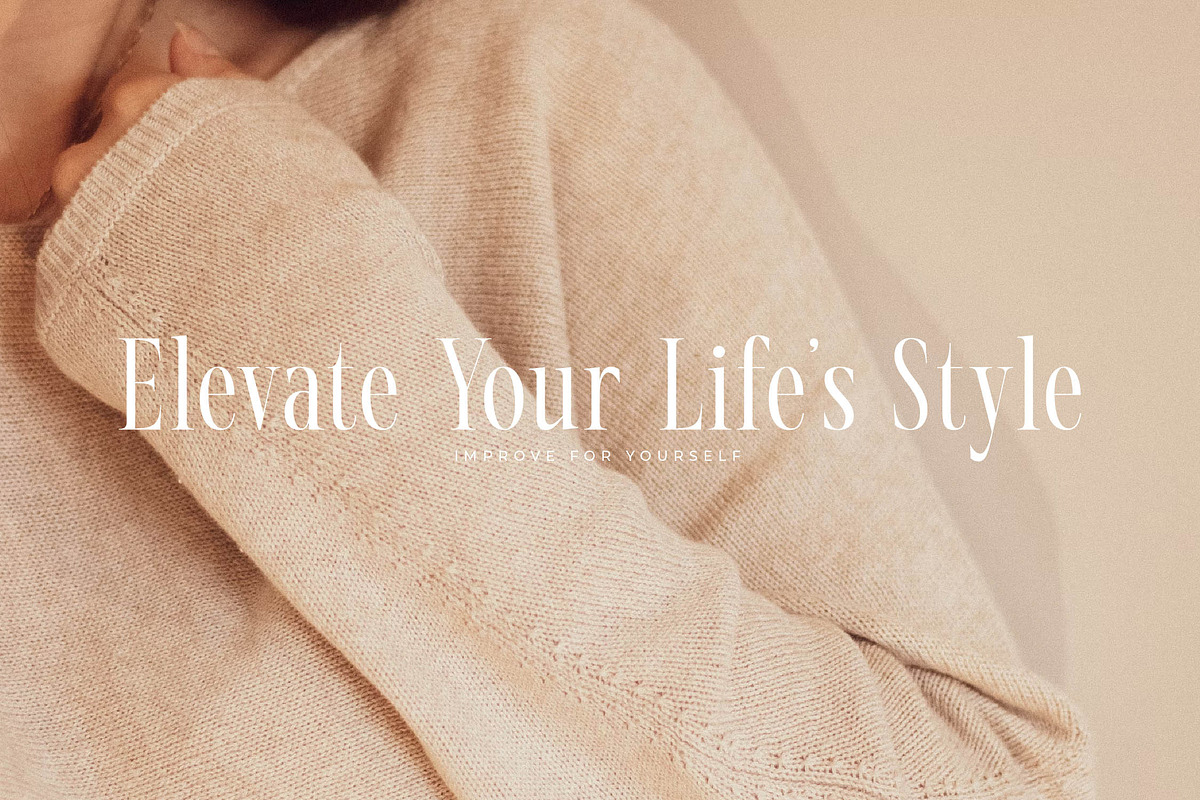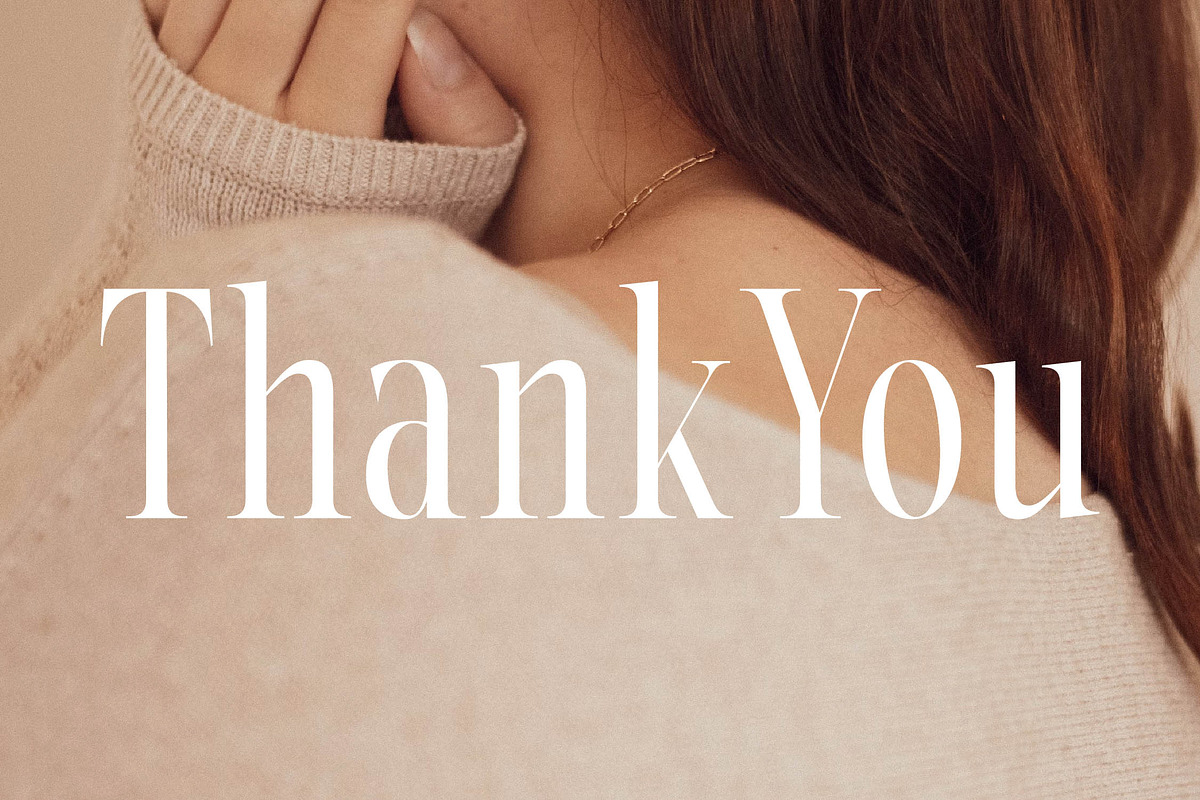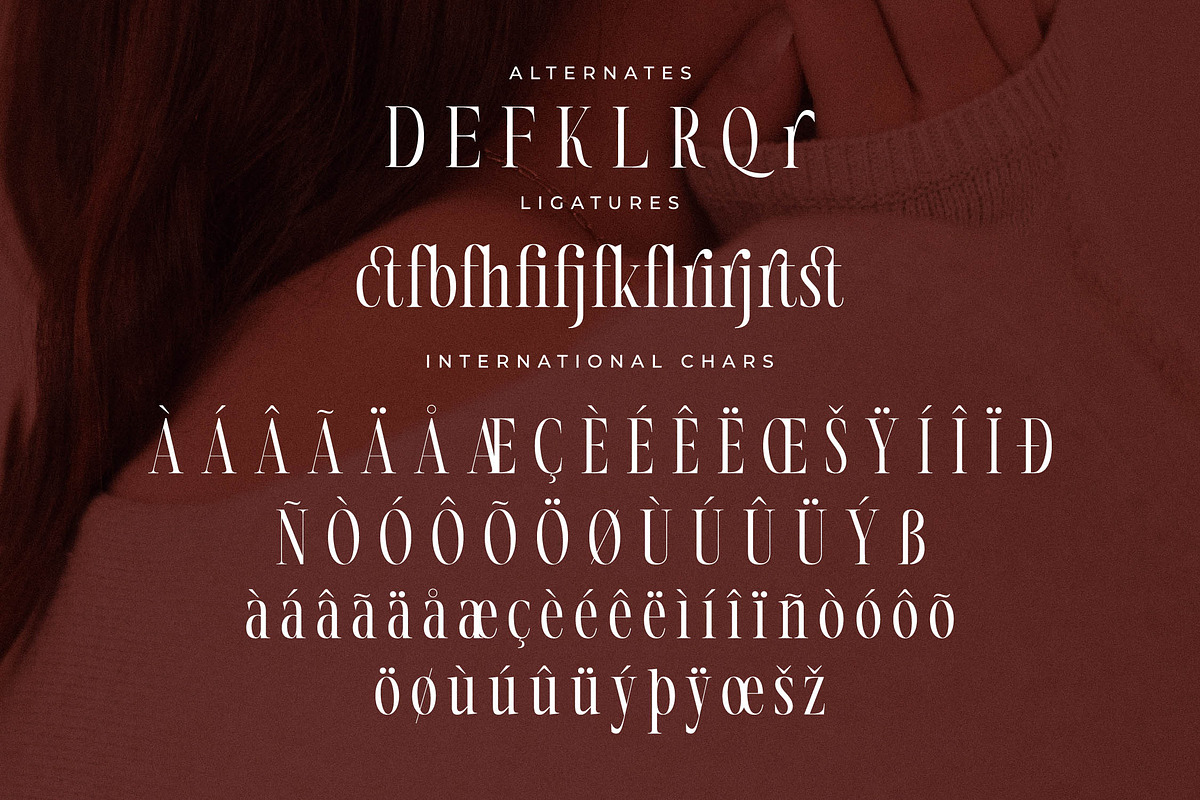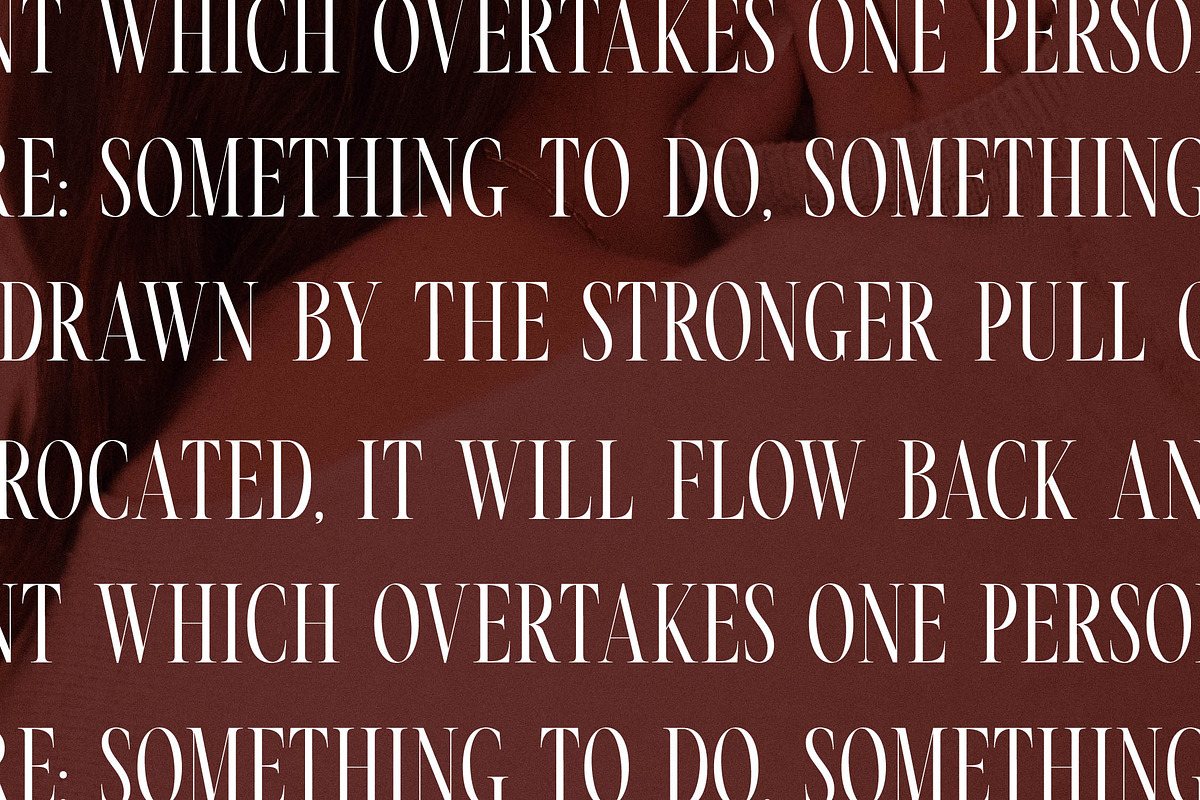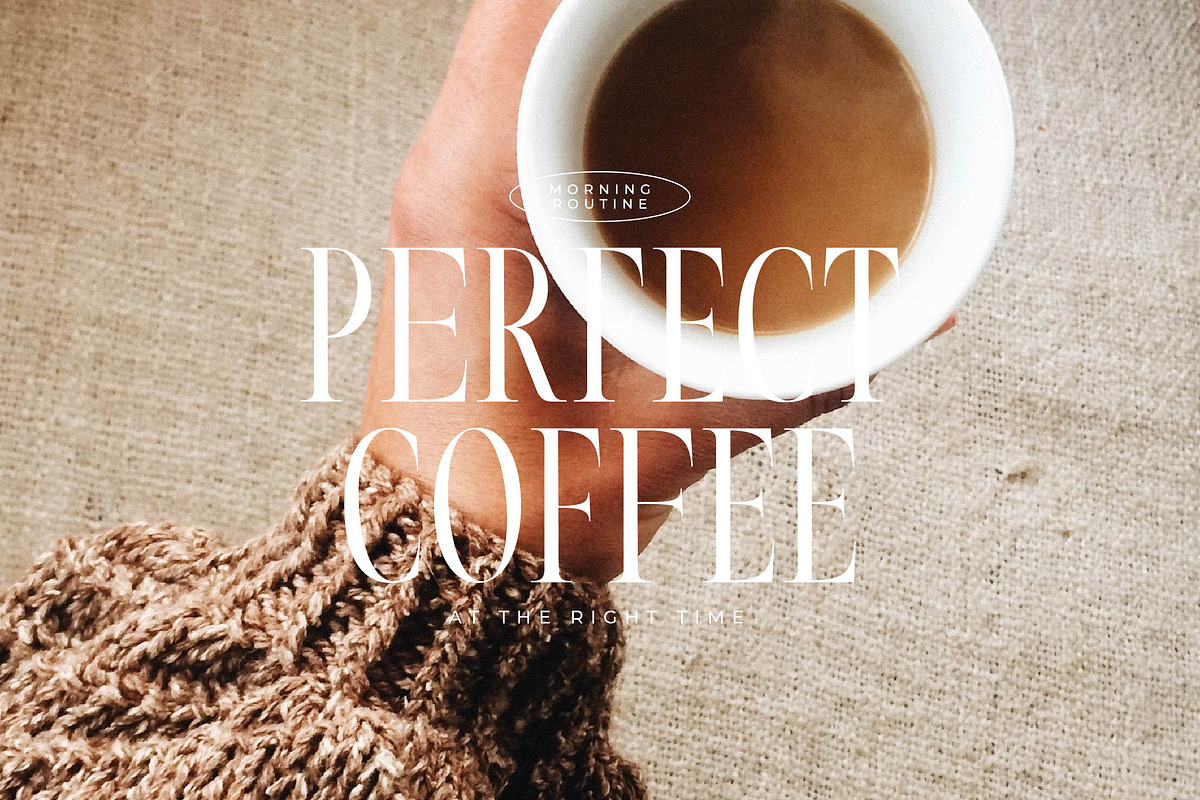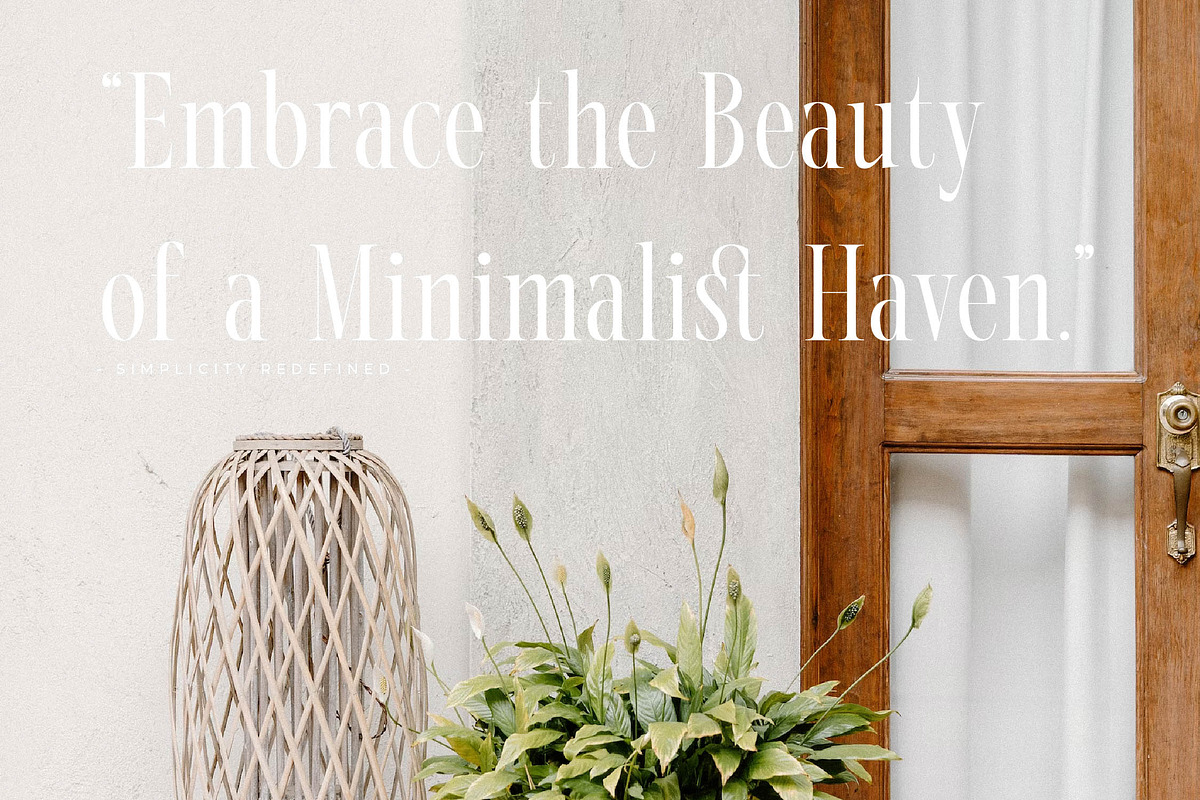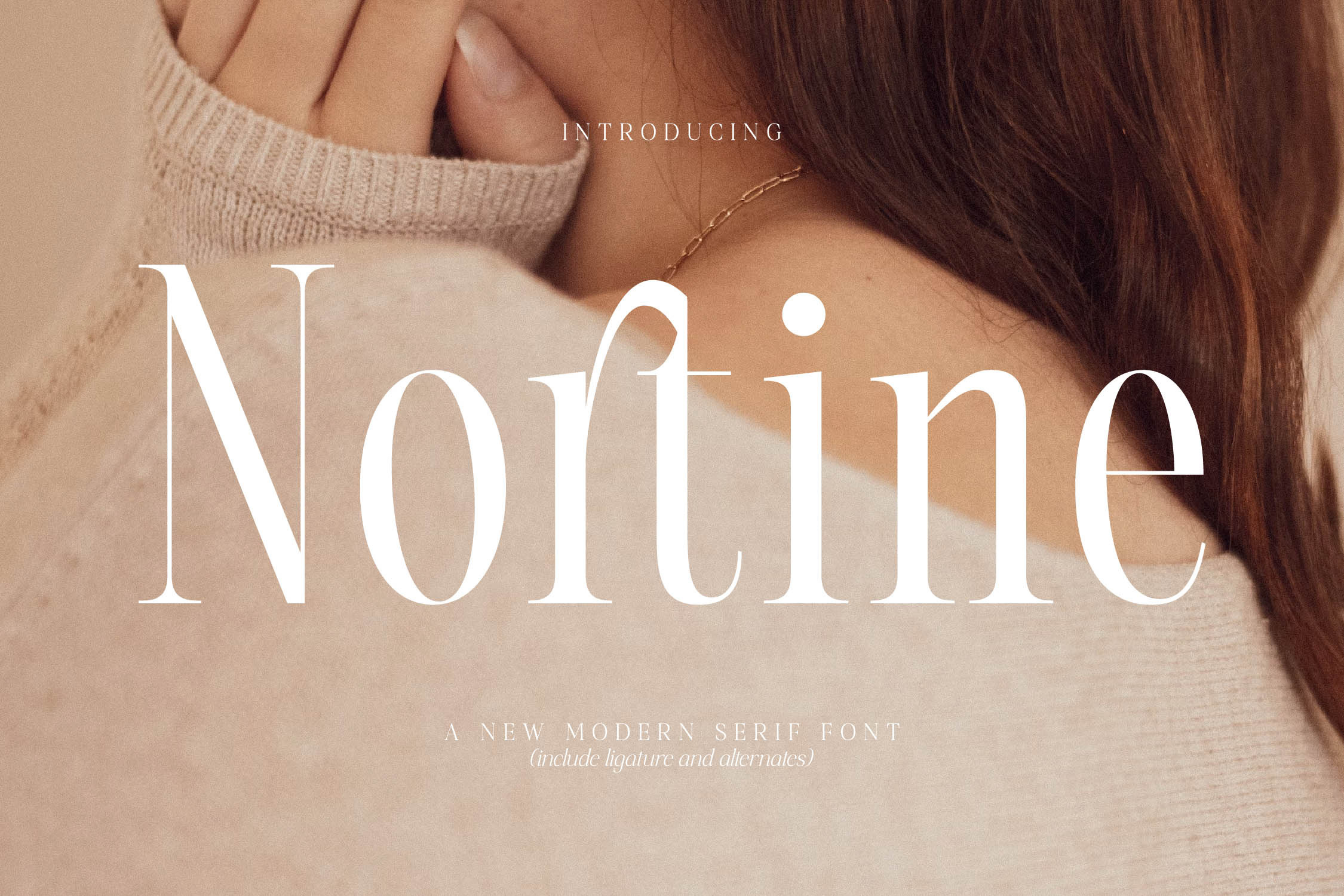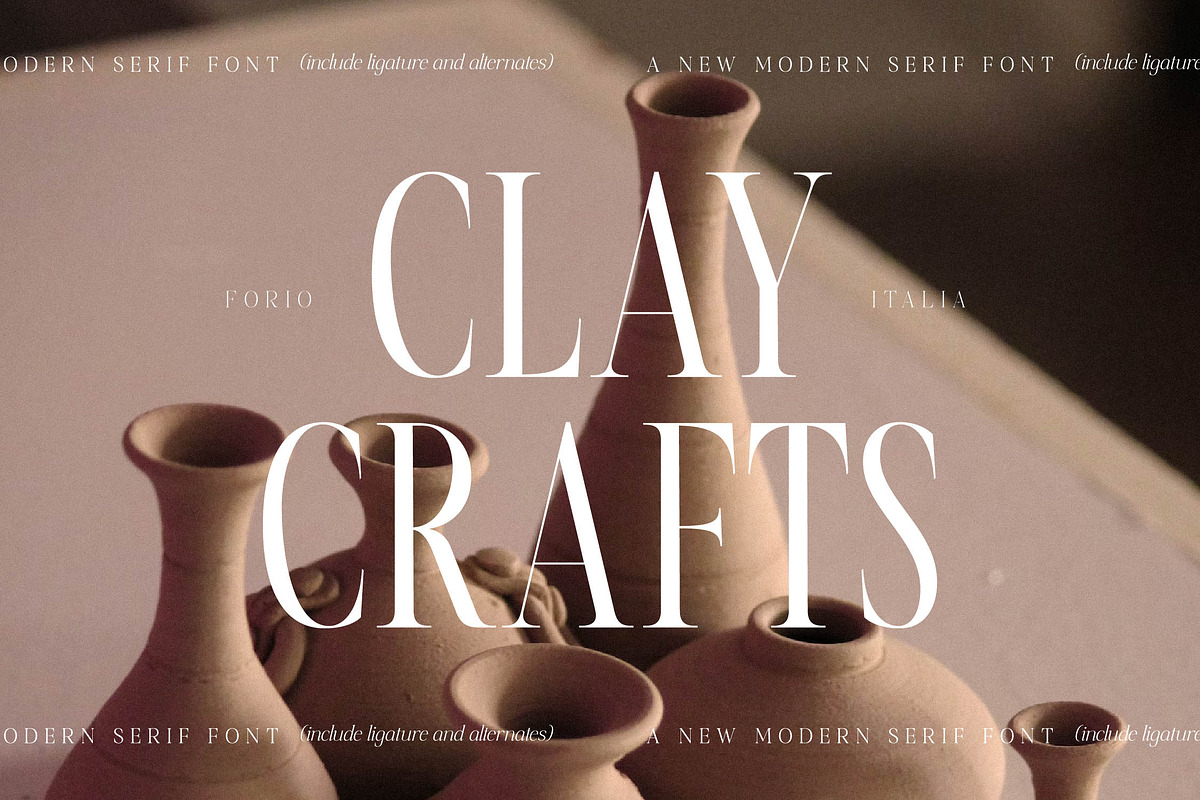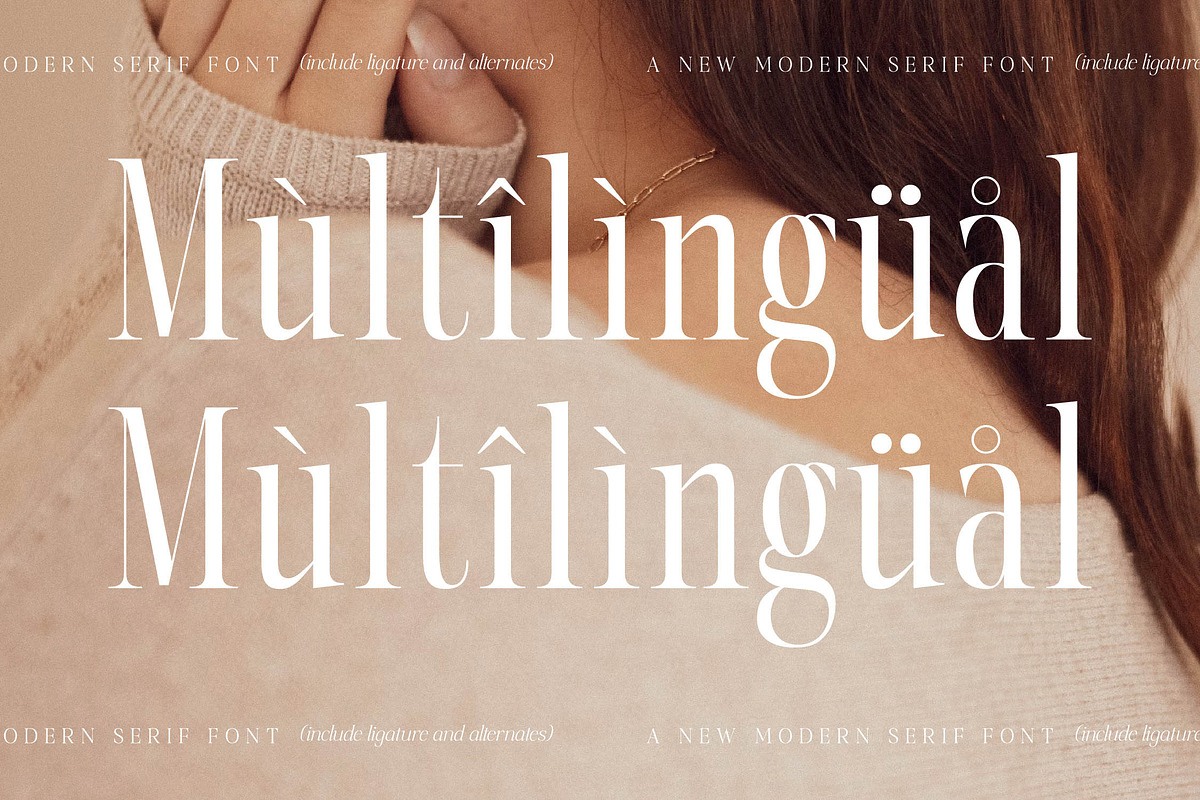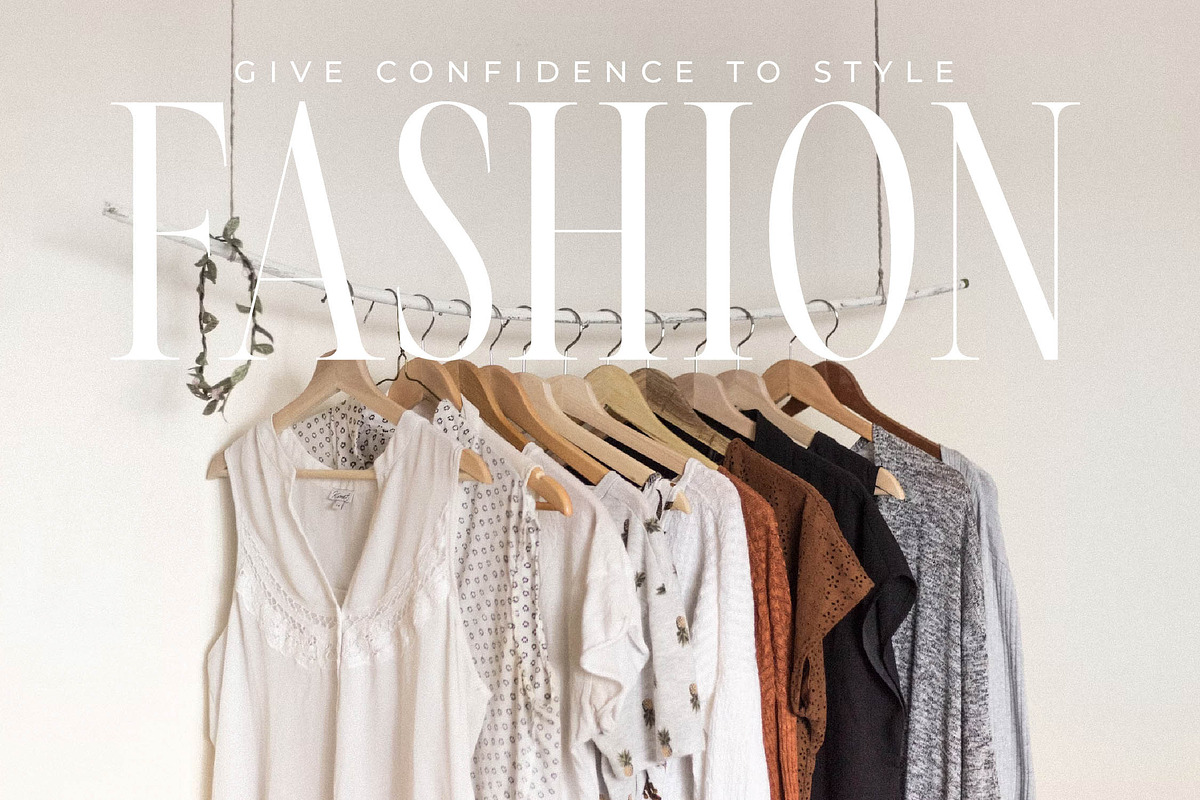
Nortine A New Modern Serif Font
Proudly present Nortine Typeface , created by Storytype, A serif modern and classic typeface that has own unique style & modern look. This typeface is perfect for an elegant & luxury logo, book or movie title design, fashion brand, magazine, clothes, lettering, quotes, and so much more.